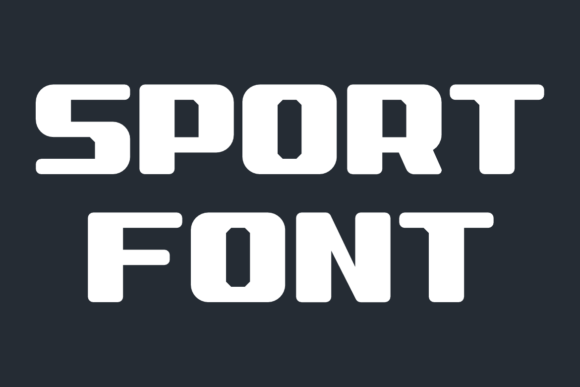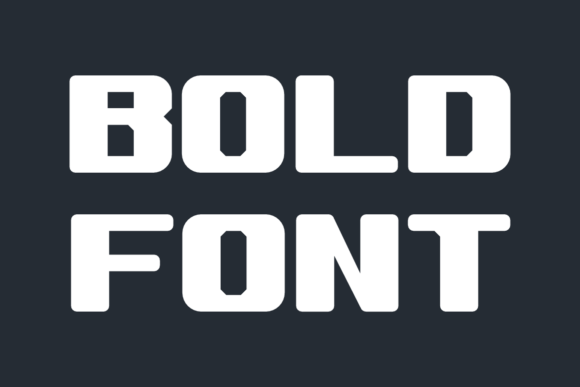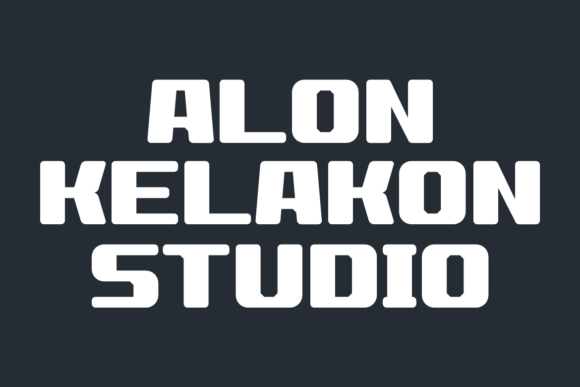
Introduction to Black Richer Font
Black Richer Font is unique.
Ready to use for your design like labeling, clothing, movie scenes, poster, movie title, gigs, album covers, logos, and much more .
Key Features of Black Richer Font
Why Choose Black Richer Font?
Black Richer Font offers exceptional quality and versatility, making it a valuable addition to your design toolkit. Whether you’re creating for personal projects or commercial use, Black Richer Font delivers professional results.